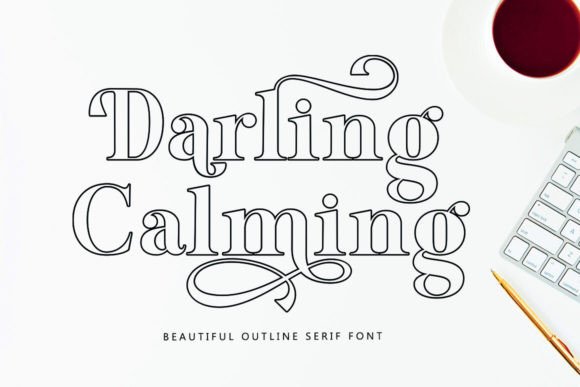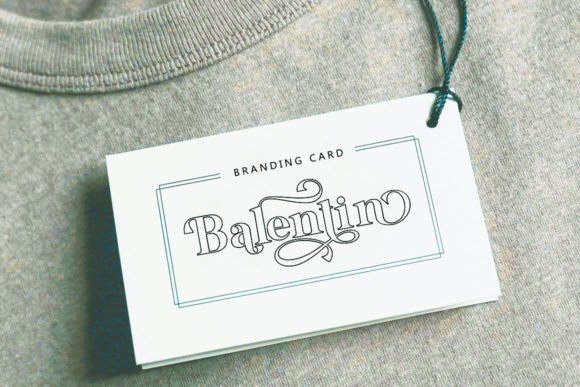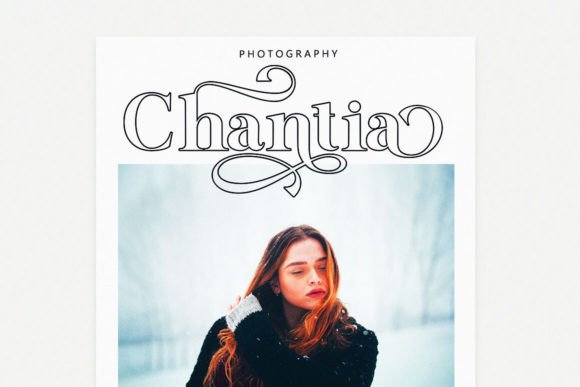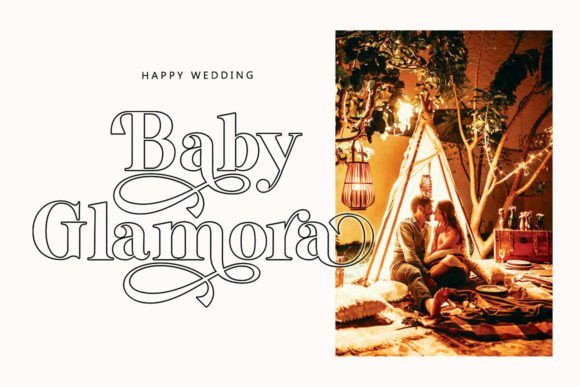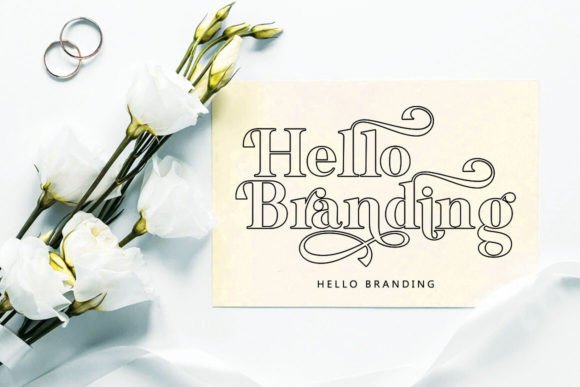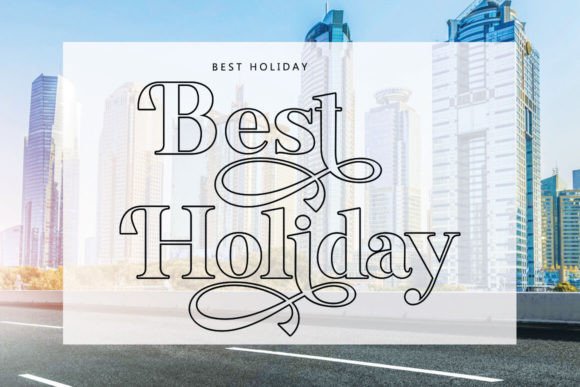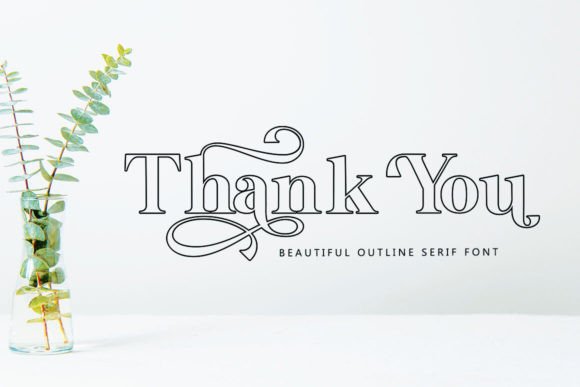
Darling Calming Font
Darling Calming Outline is a beautiful and versatile serif font. This font is characterized by a serif style with a luxurious style in a modern form, but also a friendly and cheerful style in bold, Darling Calming Outline has glyphs to give crafters more choices in designing. This modern style will make a design appear more classy, elegant, unique and edgy.